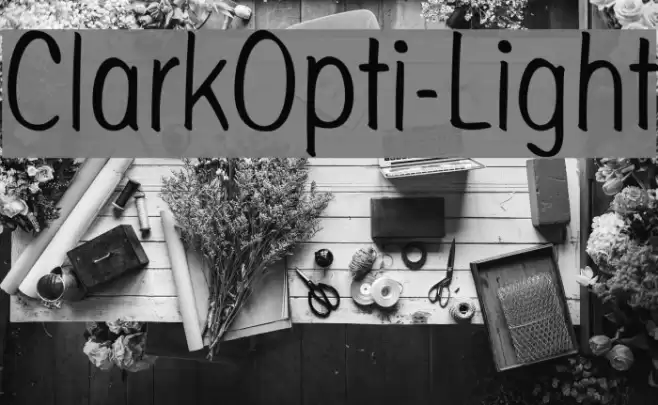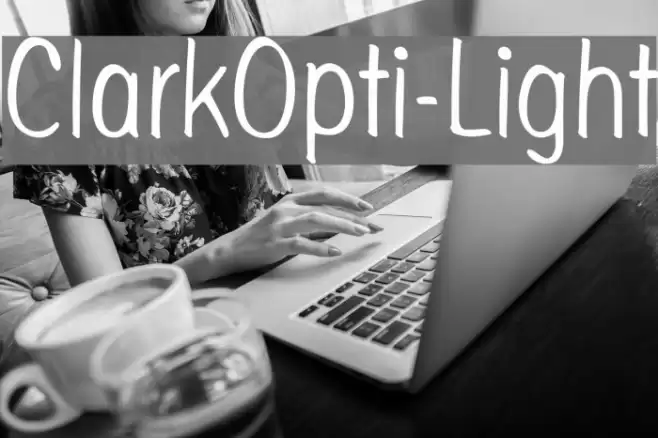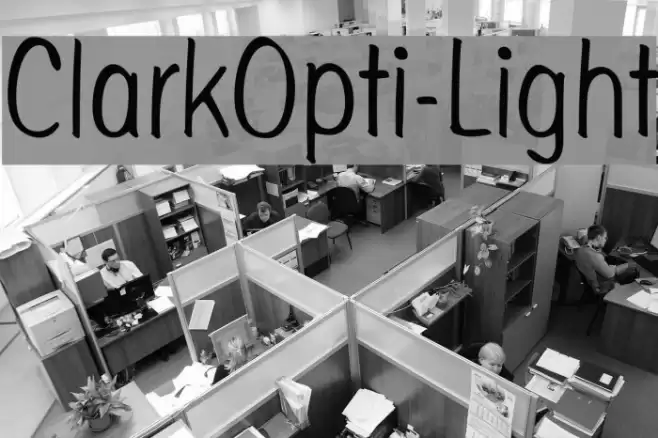
ClarkOpti-Light Font
ClarkOpti-Light Description
This font features a playful and casual handwritten style, characterized by its smooth curves and slightly irregular strokes that give it a friendly and approachable appearance. The letters are slightly elongated, with a consistent stroke width that maintains readability while adding a touch of whimsy. The uppercase and lowercase letters are well-balanced, and the numerals are clear and distinct. Special characters are creatively designed, complementing the overall aesthetic. This font is suitable for projects that require a personal and informal touch, such as invitations, greeting cards, and creative branding.
A playful, handwritten font with smooth curves and a friendly appearance from Uncategorized fonts.
- Proposed Projects: Ideal for invitations, greeting cards, creative branding, and informal communication.
- Weight: Light
- Overall Style: Casual
- Use Case: Headlines, Informal text, Creative projects